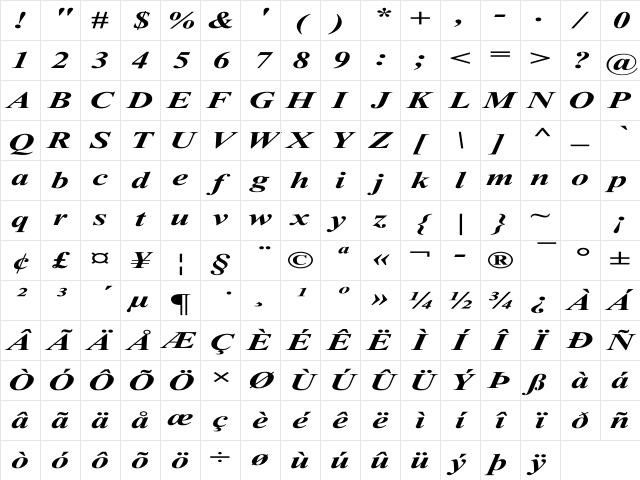
Design Context for Times Roman Ex bold italic
Times Roman Ex bold italic is a composed and adaptable typeface that performs quietly and consistently across a wide range of design contexts. The slanted form adds forward momentum and visual energy. Its bold stroke weight gives it real presence on the page.
Pro Tip: Use Times Roman Ex bold italic for emphasis, pull quotes, and subheadings where its slanted energy can add rhythm to the layout.